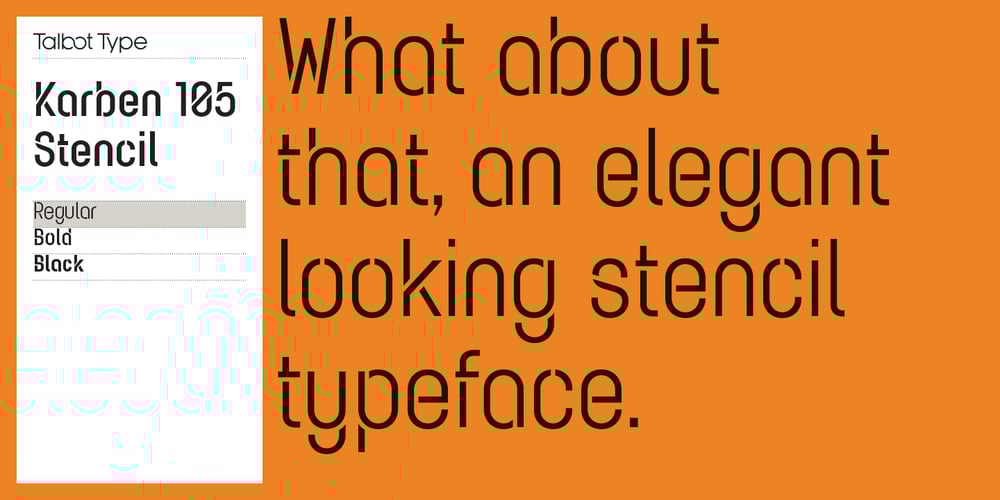
Karben 105 Stencil
Karben 105 Stencil font
Karben 105 Stencil Font Family was designed by Adrian Talbot and published by Talbot Type. Karben 105 Stencil contains 6 styles and family package options. Karben 105 Stencil is a contemporary stencil font. The stencil breaks in the letters are applied in a way that is sensitive to the forms of the character in pursuit of a more elegant stencil. Karben 105 Stencil is available in a family of three weights. Karben 105 Stencil is closely related to Karben 105 and Karben 205. All of the Karben fonts feature an extended character set, including accented characters for Central European languages.